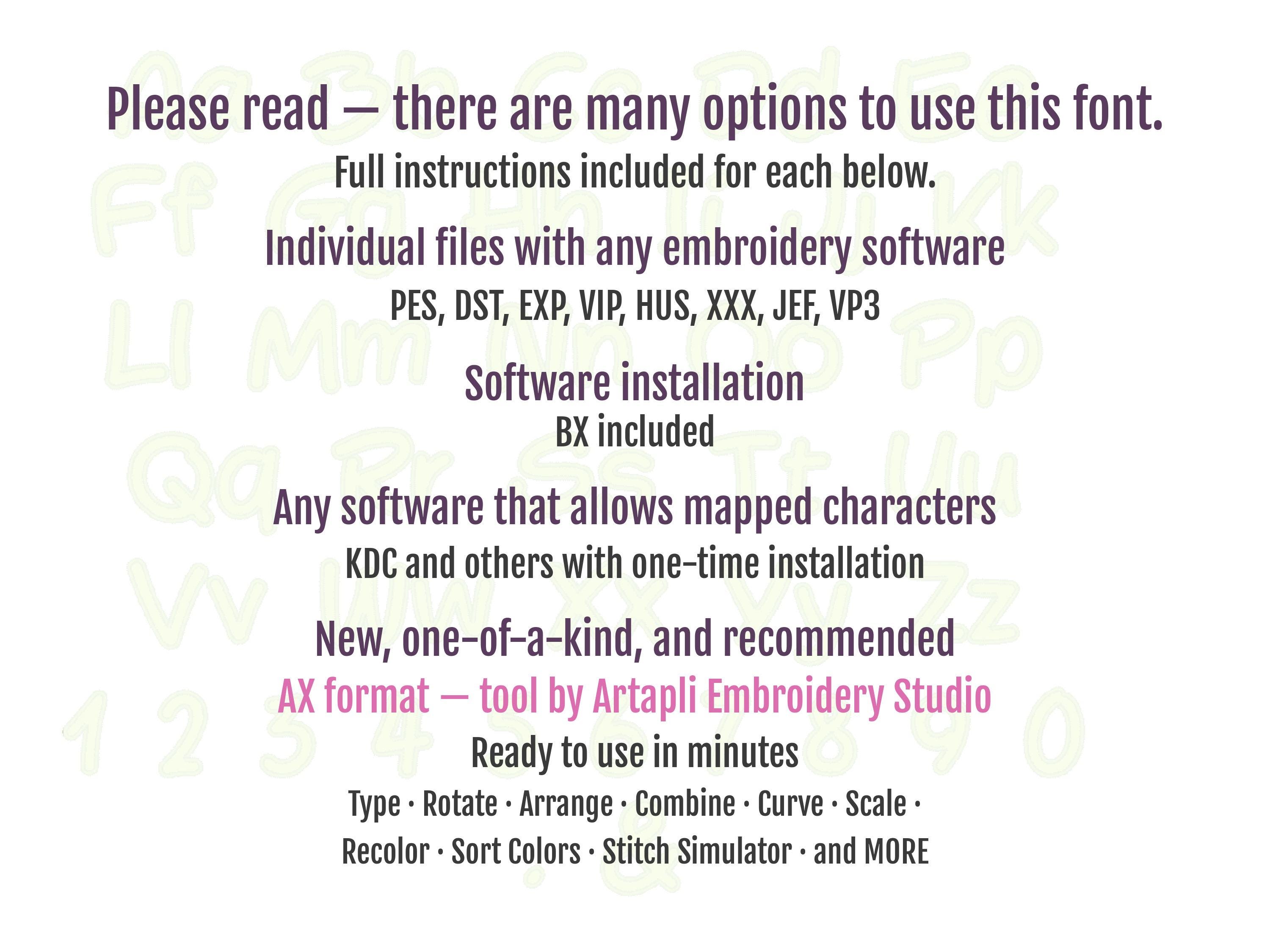
Monogram name Font Applique machine embroidery designs quick kids alphabet letters assorted sizes 1.5, 2, 2.5, 3, 4, 4.5 inches BX included!
Uppercase and lowercase letters, numbers, and punctuation.